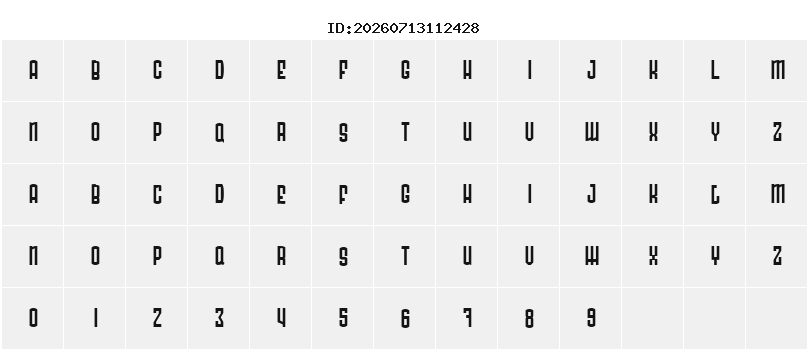
Radonator Preview
• Font Name: Radonator
• Font ID: Radonator Normal
• Full Font Name: Radonator Normal
• PostScript Name: RadonatorNormal
• Character Count: 94
About Radonator.ttf
Radonator.ttf is a modern, elegant sans-serif font designed for ultimate readability and visual harmony. Perfect for branding, headlines, web design, and print materials.